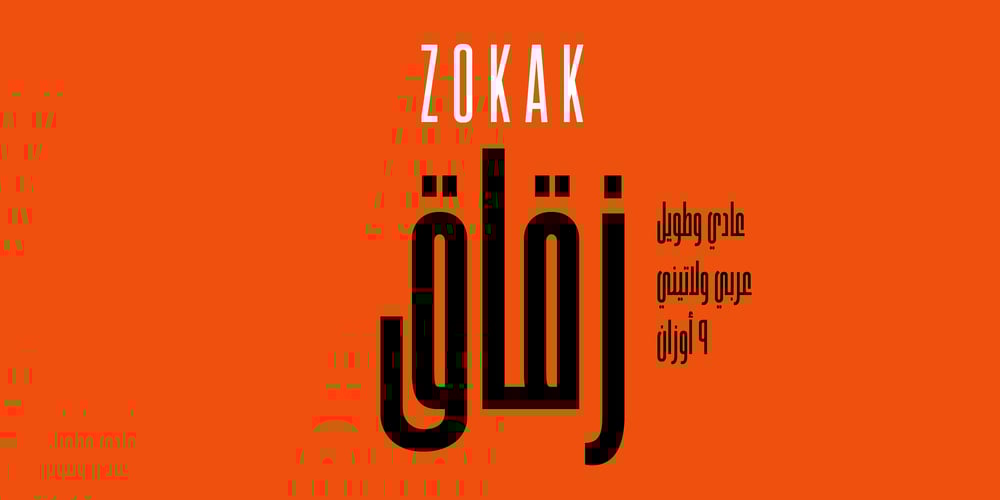
Zokak Arabic
Zokak Arabic font
Zokak Arabic Font Family was designed by Abdelrahman Farahat and published by FarahatDesign. Zokak Arabic contains 18 styles and family package options. Zokak is a first-of-its-kind ultra condensed Arabic typeface designed for display uses. The name means an alley in Arabic which comes from its very narrow letters, which makes it perfect in small spaces.Zokak has two main styles, the default style and the tall one to give more diversity and to be suitable for more uses.